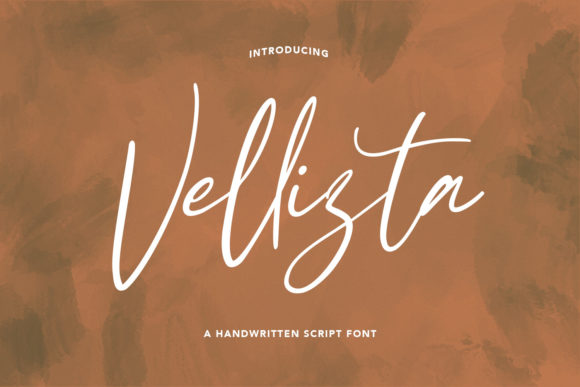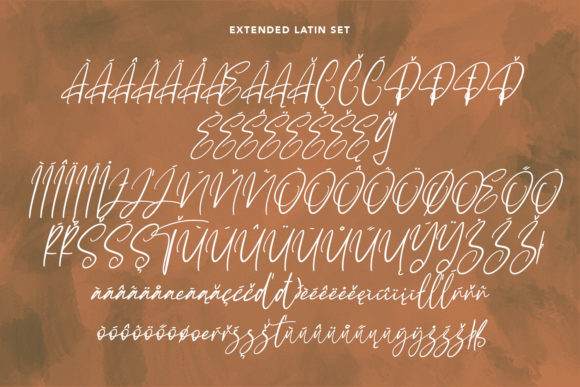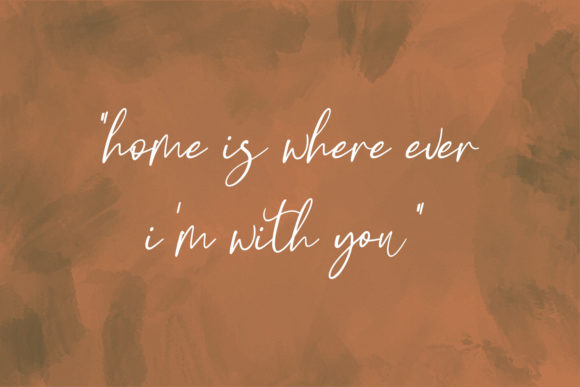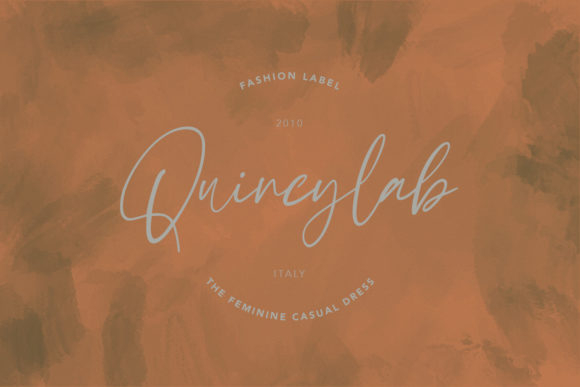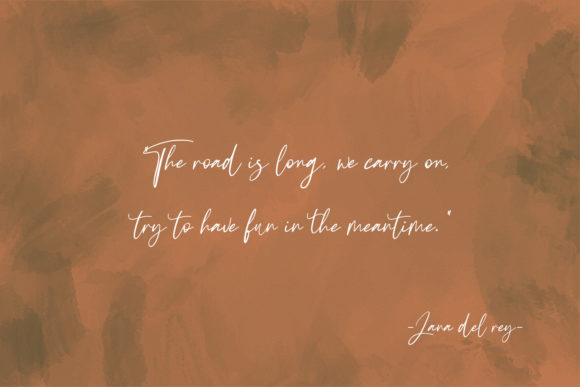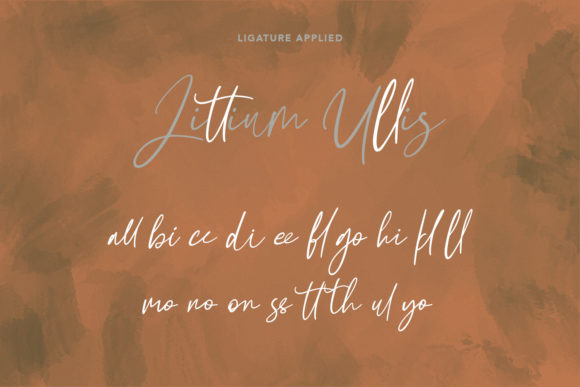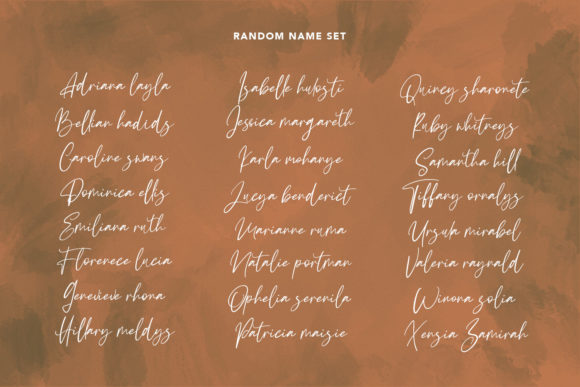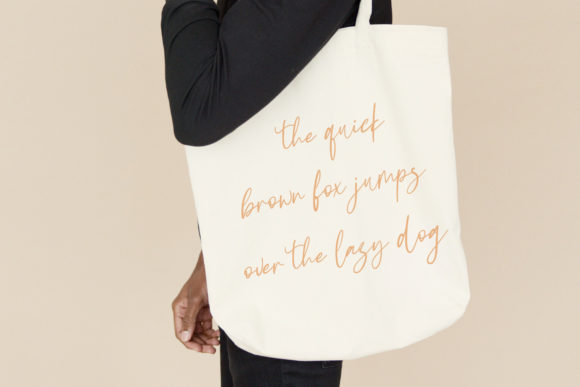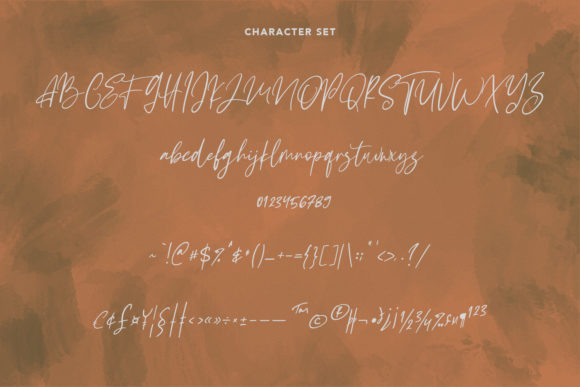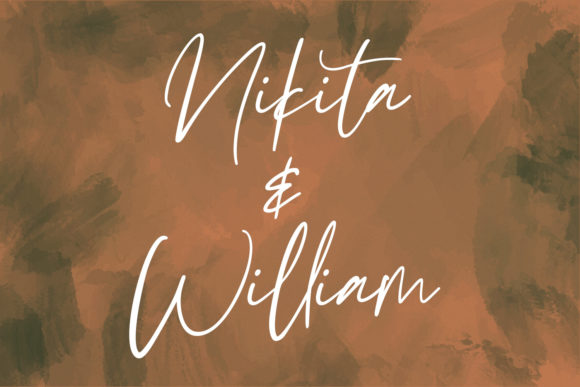
Vellizta Font
About Vellizta Font
Vellizta is a delicate and stylish script font, that exudes elegance and class. This font was particularly crafted for those who need a beautiful and refreshing look to their designs.